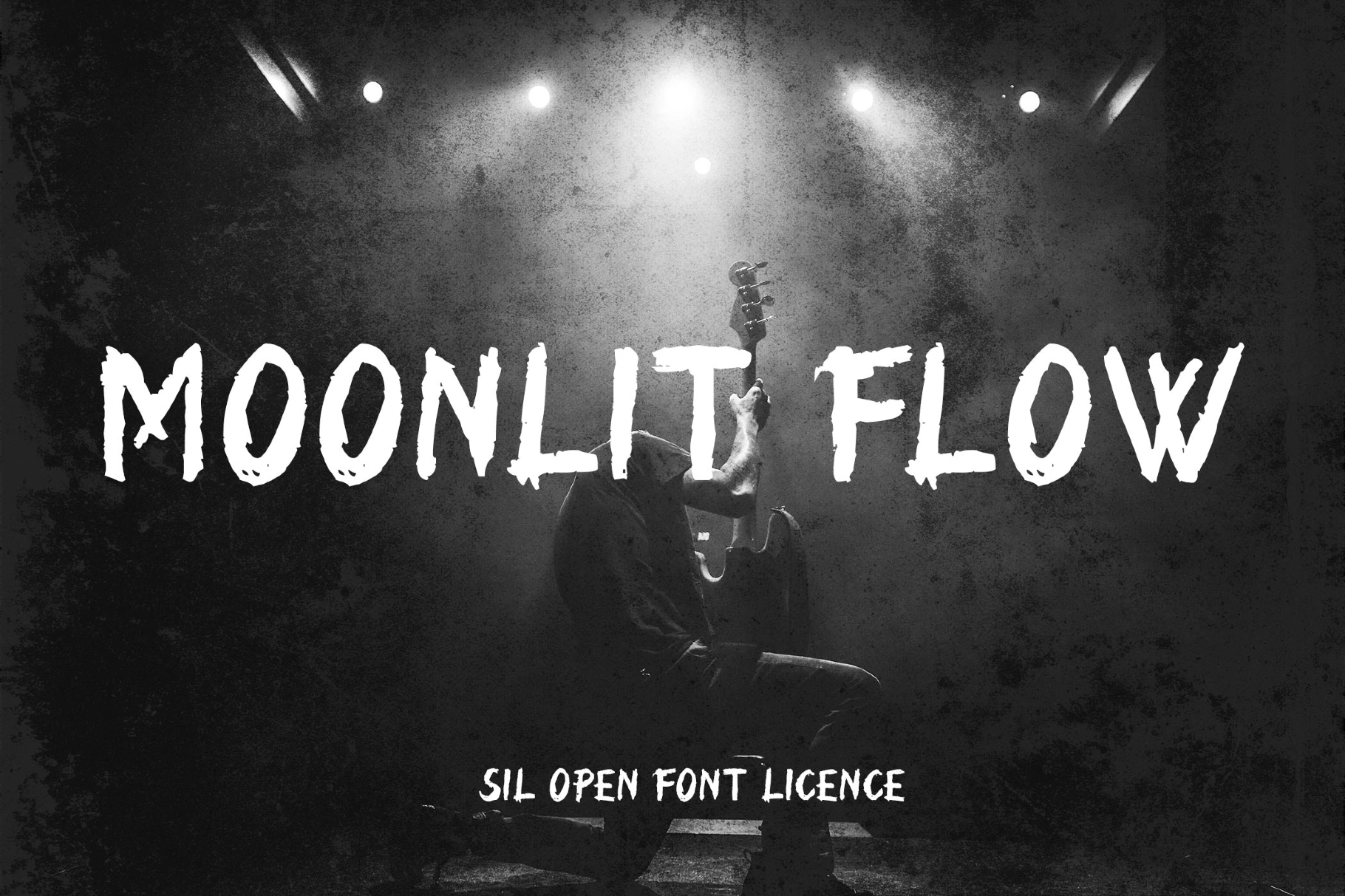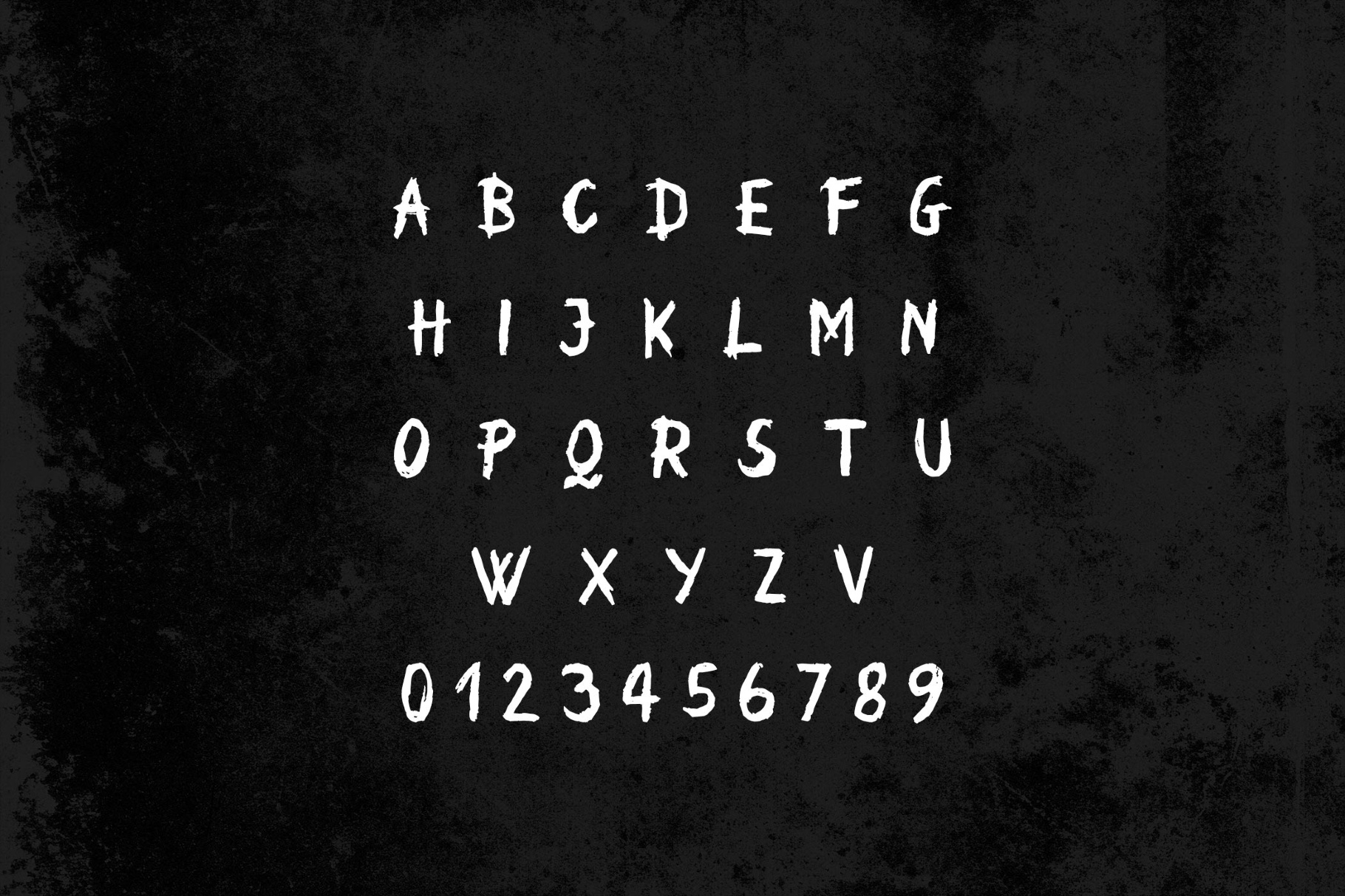
Moonlit Flow Font
MoonlitFlow
Moonlit Flow slashes bold brush strokes across the line with a grungy energy. Its ragged edges and inky breaks are a strong pick for concert posters, album artwork, apparel graphics, indie game title screens, packaging labels, book covers, bold logotypes, and expressive social media visuals. The font ships in Regular and Italic, which gives you a quick way to vary emphasis across short lines.
- Uppercase letters only.
- Numbers, punctuation, dingbats, and symbols.
- Multilingual support across extended Latin scripts.